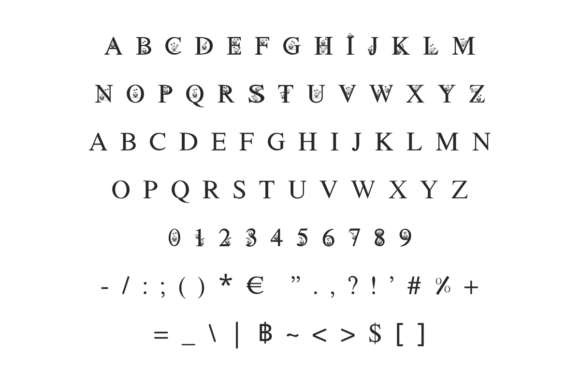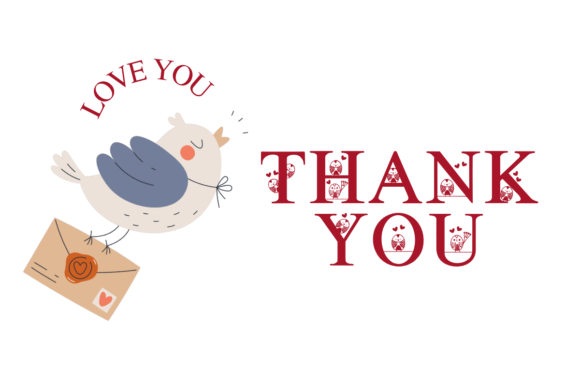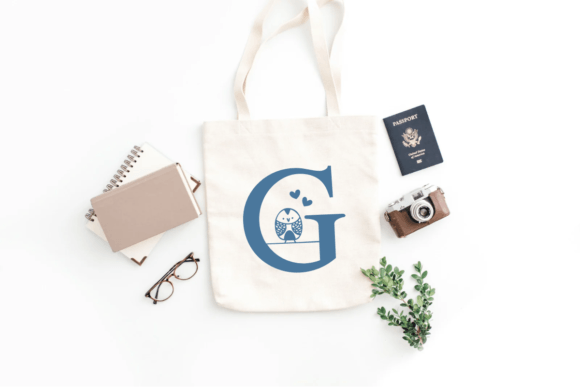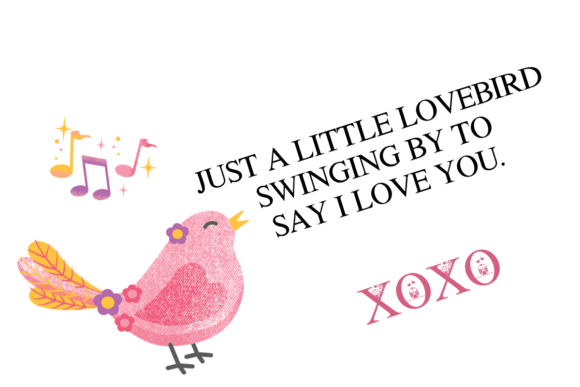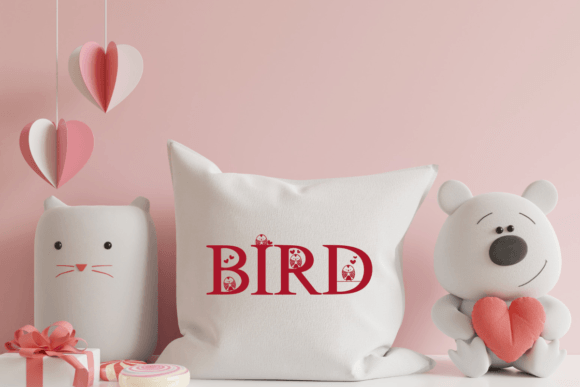
Cute Bird Font: Add a Playful Touch to Your Designs
Are you looking for a unique and charming way to add some personality to your designs? Look no further than the Cute Bird Font! This delightful font features adorable little birds perched on each letter, making it perfect for adding a playful and whimsical touch to any project.
What is Cute Bird Font?
Cute Bird Font is a fun and decorative font that is sure to capture the hearts of designers and crafters alike. Each letter of the alphabet is carefully designed to feature a cute little bird, making it a one-of-a-kind addition to any design. Whether you’re working on a DIY project, a branding campaign, or simply want to add some personality to your social media posts, this font is sure to bring a smile to your face.
Features of Cute Bird Font
- Adorable Bird Designs: Each letter of the alphabet features a unique and adorable bird design, making it perfect for adding a playful touch to your designs.
- Playful and Whimsical: The Cute Bird Font is designed to be fun and carefree, making it perfect for projects that require a lighthearted and playful vibe.
- Perfect for DIY Projects: Whether you’re working on a craft project, a scrapbook, or a DIY home decor item, the Cute Bird Font is sure to add a personal touch.
Uses for Cute Bird Font
The Cute Bird Font is versatile and can be used for a variety of projects, including:
- Branding and Marketing: Add a playful touch to your branding campaign with custom bird-themed logos, business cards, and social media graphics.
- DIY Projects: Use the Cute Bird Font to add a personal touch to your DIY projects, such as scrapbooking, card making, and home decor.
- Wedding and Party Decor: Create custom wedding and party decorations, such as banners, garlands, and signs, with a playful bird theme.
- Social Media Graphics: Add a fun and playful touch to your social media posts with custom graphics featuring the Cute Bird Font.
Tips for Using Cute Bird Font
Here are a few tips for getting the most out of the Cute Bird Font:
- Mix and Match: Experiment with different font sizes and colors to create a unique and eye-catching design.
- Pair with Other Fonts: Pair the Cute Bird Font with other fonts to create a fun and playful contrast.
- Use in Combination with Images: Use the Cute Bird Font in combination with images of birds, flowers, and other natural elements to create a cohesive design.
The Cute Bird Font is a fun and decorative font that is sure to add a playful and charming touch to any project. With its adorable bird designs and easy-to-use format, it’s perfect for designers and crafters of all skill levels. Whether you’re working on a DIY project, a branding campaign, or simply want to add some personality to your social media posts, the Cute Bird Font is sure to bring a smile to your face. So why not give it a try and see how it can add a little whimsy to your designs?